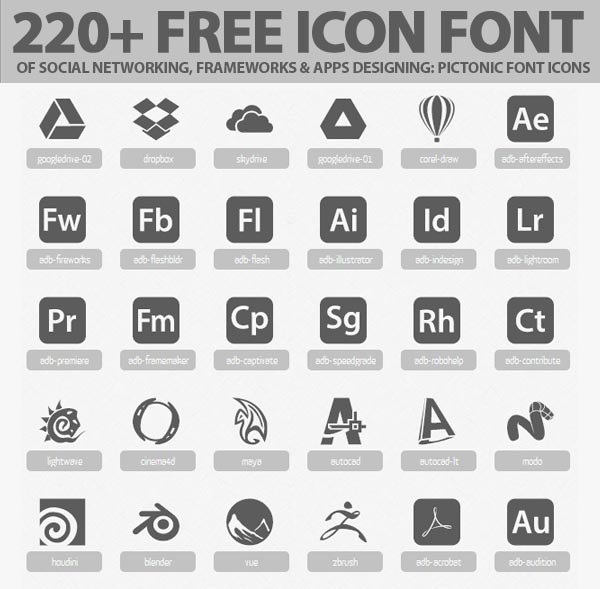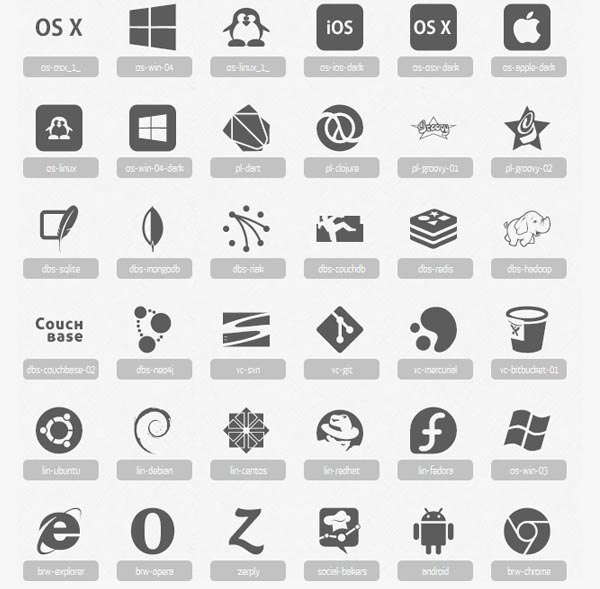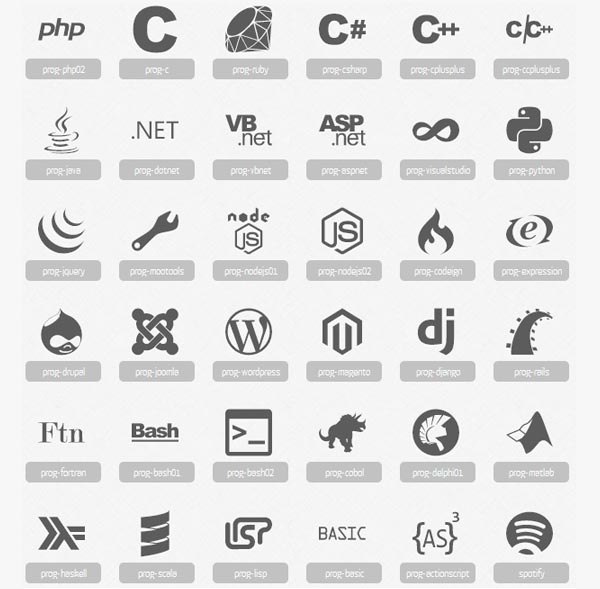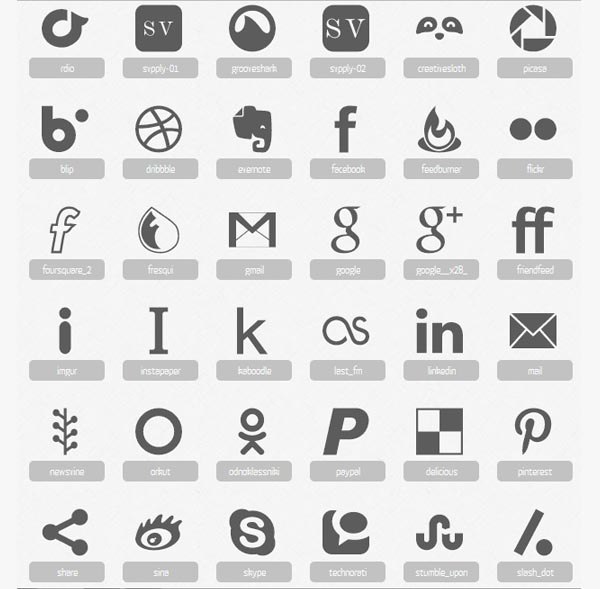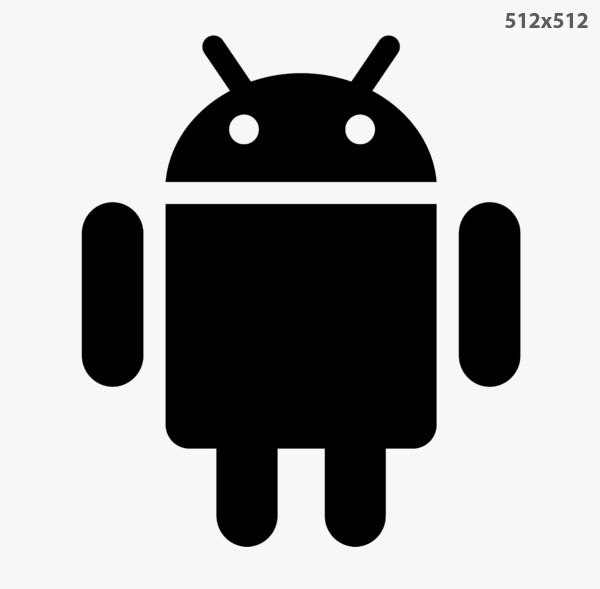
Pictonic
Pictonic Font Icons is the largest icon font library which have most of the popular items in social networking, programming, framework, app and also includes browsers, operating systems and databases on the web.